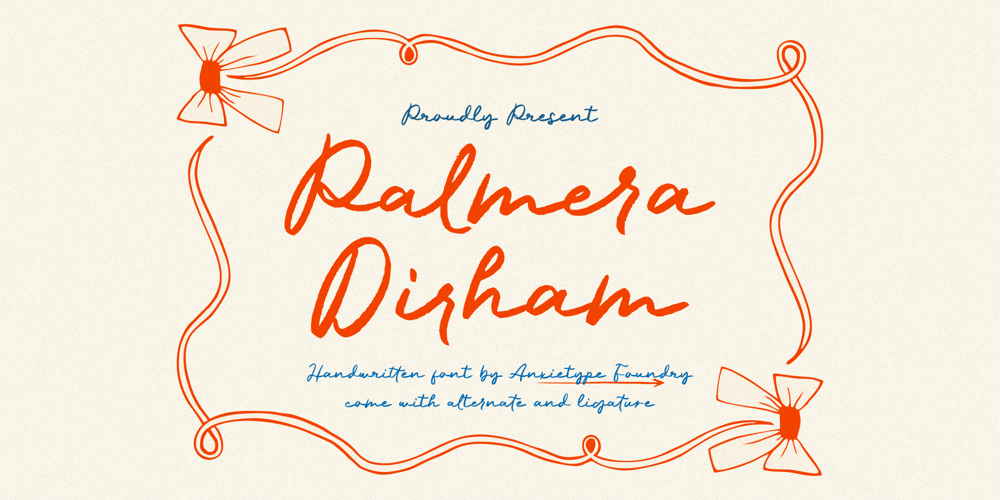
Palmera Dirham Font Family was designed by Annas Rifky Anhar and published by Anxietype Foundry. Palmera Dirham contains 1 styles and family package options. Introducing Palmera Dirham- a mesmerizing handwritten script font meticulously brought to life by Anxietype Foundry. Embellished with a whimsical charm, this font truly shines when used for crafting greeting cards, penning down heart-felt quotes, creating inviting menu designs, and designing alluring wedding invitations. It’s perfect for artists looking to add a touch of magic and individuality to lyric designs and magazine layouts or those seeking to elevate their social media posts and headers. Experience the unique allure of Palmera Dirham and let your creativity flow like never before.